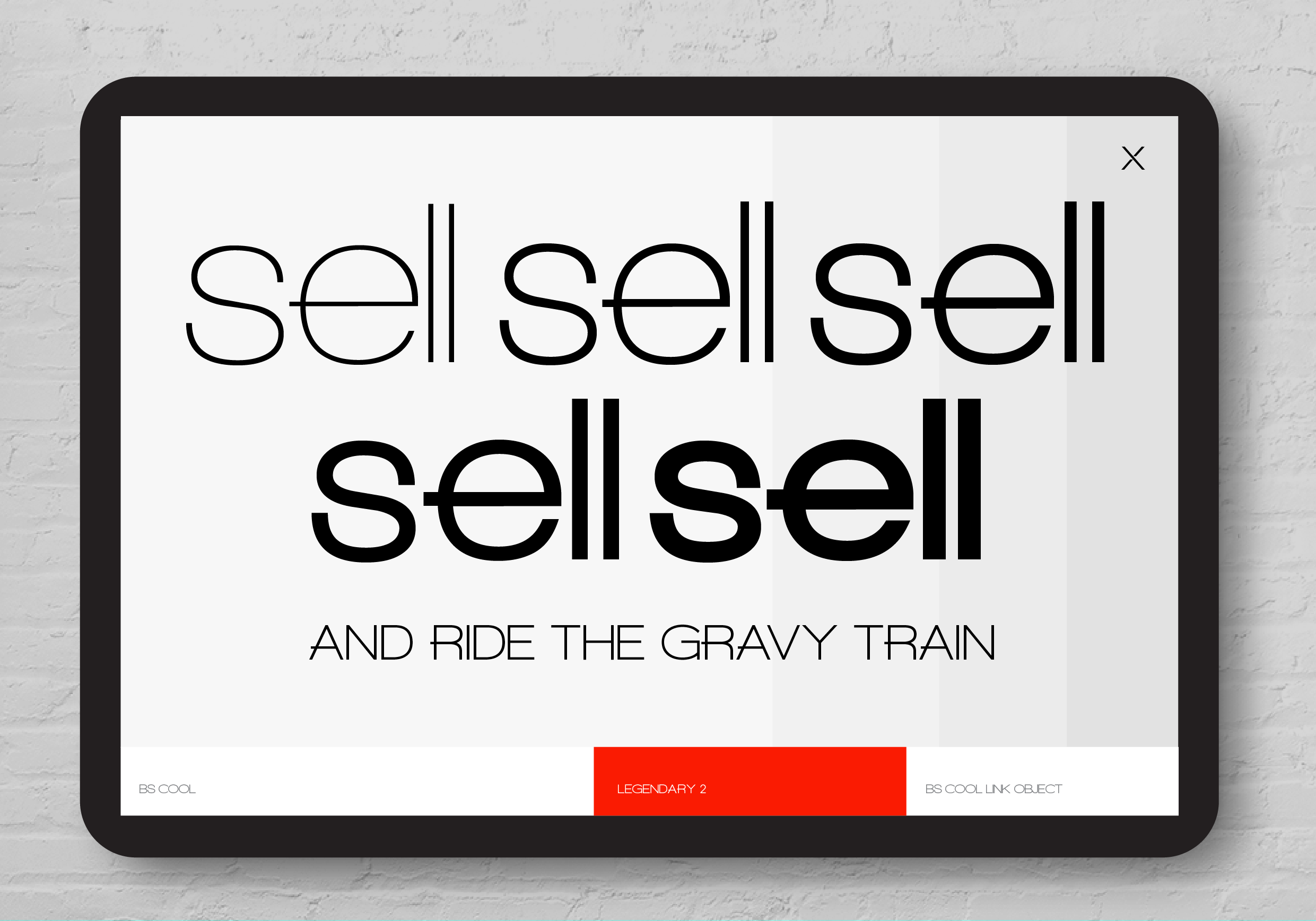
AngelmoxiLogo and Layout Font
Angelmoxi
Make stunning logos and layout designs with Angelmoxi, designed by Matt Chansky. Enjoy the unique font characters and high-end professional styling to give your design work a sophisticated look. In logo design, you often owe clients many options, make Angelmoxi one of them, you'll be glad you did. Angelmoxi is versatile and chic. The family comes with 5 weights. Multilingual. OTF and Truetype. Want to take a test drive? Download Angelmoxi Regular for free – Download free font.